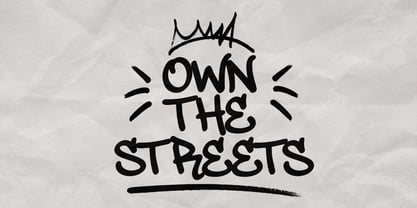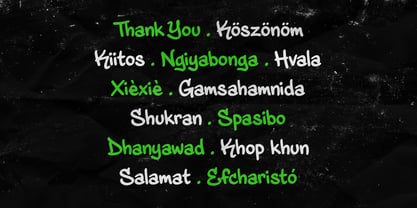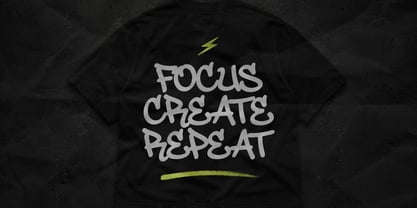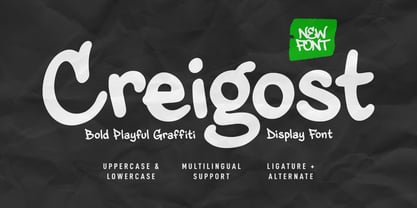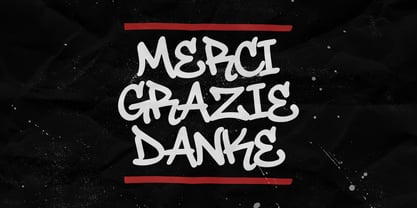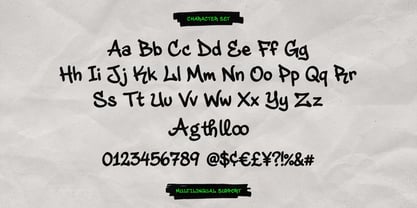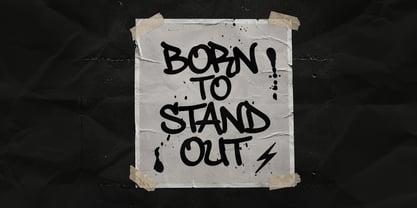
Creigost
von Maulana Creative
Die Schriftfamilie Creigost wurde von Gilang Maulana entworfen und von Maulana Creative veröffentlicht. Creigost enthält 1 Stile. Mehr über diese Familie
Creigost is a bold, energetic display typeface inspired by modern urban art and expressive street lettering. Designed with thick, fluid strokes and rounded character shapes, this font brings a vibrant, youthful aesthetic to any creative layout. Its comprehensive set includes uppercase and lowercase letters, numeric digits, essential punctuation marks, and special ligatures or alternate glyphs to help create dynamic visual compositions. Additionally, built-in multilingual support ensures seamless versatility for international branding, social media graphics, poster designs, and artistic promotional materials.
Equipped with a casual hand-drawn flow, this typeface captures an authentic artistic vibe while maintaining high legibility across both digital displays and large-format media. The distinct letterforms offer a balance between fun, playful energy and edgy, bold statements, making it an ideal choice for eye-catching titles, product packaging, branding identity, and urban-themed projects. Whether used for event flyers, decorative logotypes, or striking video thumbnails, Creigost adds an expressive, creative touch that instantly attracts attention.
Designer: Gilang Maulana
Foundry: Maulana Creative